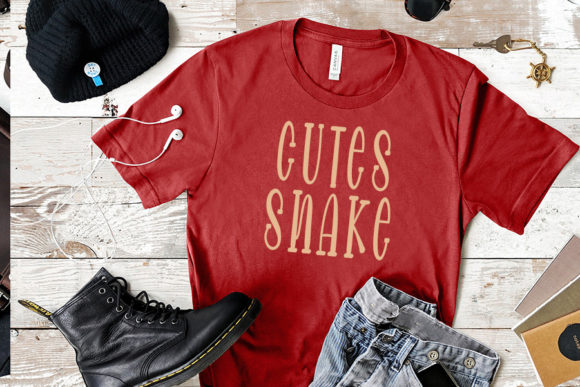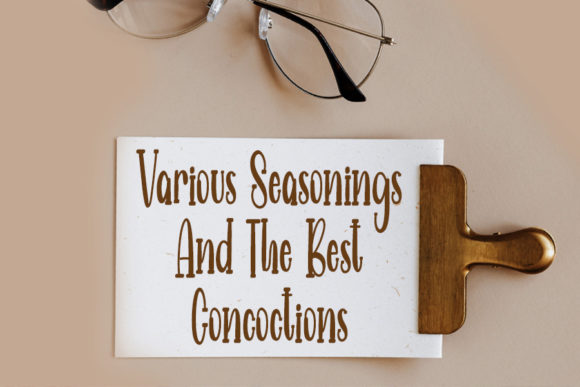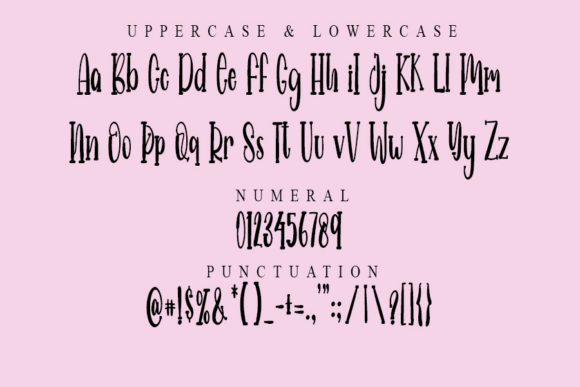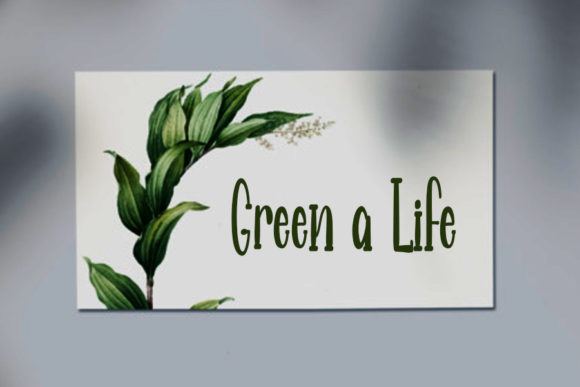
Introducing Farmhouse Recipe Font: The Perfect Blend of Quirky and Friendly
Are you a designer, crafter, or DIY enthusiast looking for a font that adds a touch of warmth and personality to your projects? Look no further than Farmhouse Recipe Font, a tall and friendly handwritten font that’s sure to become your new favorite. With its unique blend of quirky charm and versatility, Farmhouse Recipe Font is the perfect choice for a wide range of applications, from crafting and cooking to branding and marketing.
A Little Bit Quirky, A Lot of Character
Farmhouse Recipe Font is a one-of-a-kind typeface that’s sure to stand out in any project. Its tall, slender letters are infused with a playful, whimsical spirit that’s perfect for adding a touch of personality to your designs. Whether you’re creating a recipe card, a craft tutorial, or a brand identity, Farmhouse Recipe Font is sure to bring a smile to your audience’s face.
One of the things that sets Farmhouse Recipe Font apart is its incredible versatility. This font looks incredibly adept on a wide variety of contexts, from rustic and vintage-inspired designs to modern and sleek applications. Whether you’re creating a handmade card, a blog post, or a social media graphic, Farmhouse Recipe Font is sure to adapt seamlessly to your design style.
Farmhouse Recipe Font is a dream come true for designers and crafters who want to add a personal touch to their projects. With its friendly, approachable vibe, this font is perfect for creating a wide range of materials, including:
- Recipe cards and cookbooks
- Handmade cards and invitations
- Craft tutorials and patterns
- Branding and marketing materials
- Blog posts and social media graphics
Why Choose Farmhouse Recipe Font?
So why choose Farmhouse Recipe Font over other fonts on the market? Here are just a few reasons why this font stands out:
- Unique character: Farmhouse Recipe Font has a one-of-a-kind personality that’s sure to set your designs apart.
- Versatility: This font looks great in a wide range of contexts, from rustic to modern.
- Easy to read: Despite its quirky charm, Farmhouse Recipe Font is incredibly easy to read, even at small sizes.
- Perfect for DIY projects: This font is a perfect fit for handmade and DIY projects, adding a touch of warmth and personality to your creations.
Farmhouse Recipe Font is a truly unique and versatile typeface that’s perfect for designers, crafters, and DIY enthusiasts. With its quirky charm, friendly vibe, and incredible versatility, this font is sure to become a staple in your design toolkit. So why wait? Download Farmhouse Recipe Font today and start adding a touch of warmth and personality to your projects!